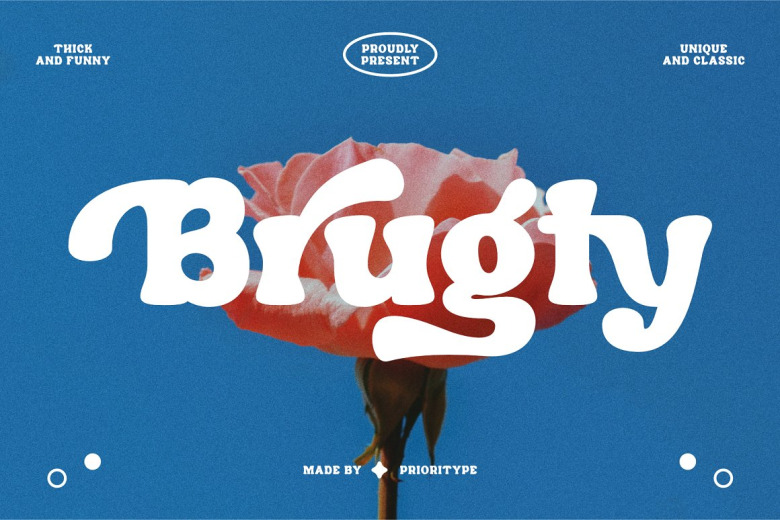
Brugty Font
Brugty is a cool, retro styled and bold display font. This font reads as strong, confident, and dynamic and can add tons of nostalgic character to your designs.